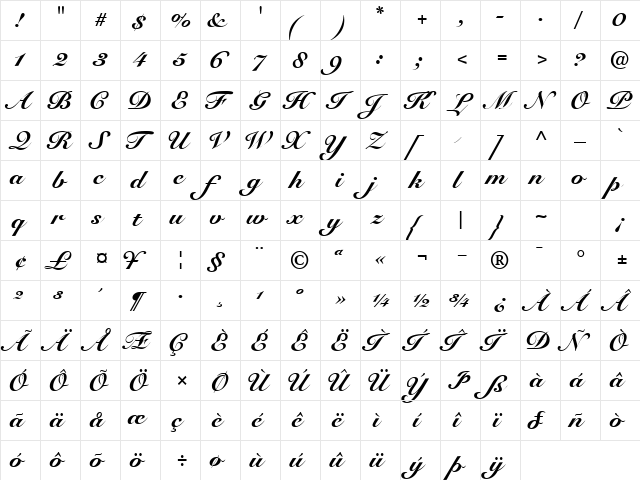
TangoScriptBlackSSK Regular
Design Context for TangoScriptBlackSSK Typeface
TangoScriptBlackSSK flows with the natural rhythm of handwritten lettering, making it ideal for designs that call for warmth and personal expression.
Font Pairing: Combine TangoScriptBlackSSK with a simple geometric sans for maximum contrast — the tension between flowing curves and clean structure is a classic typographic pairing.
Pro Tip: Pair TangoScriptBlackSSK with a clean sans-serif for supporting text. The contrast between fluid script and geometric structure creates an elegant typographic hierarchy.